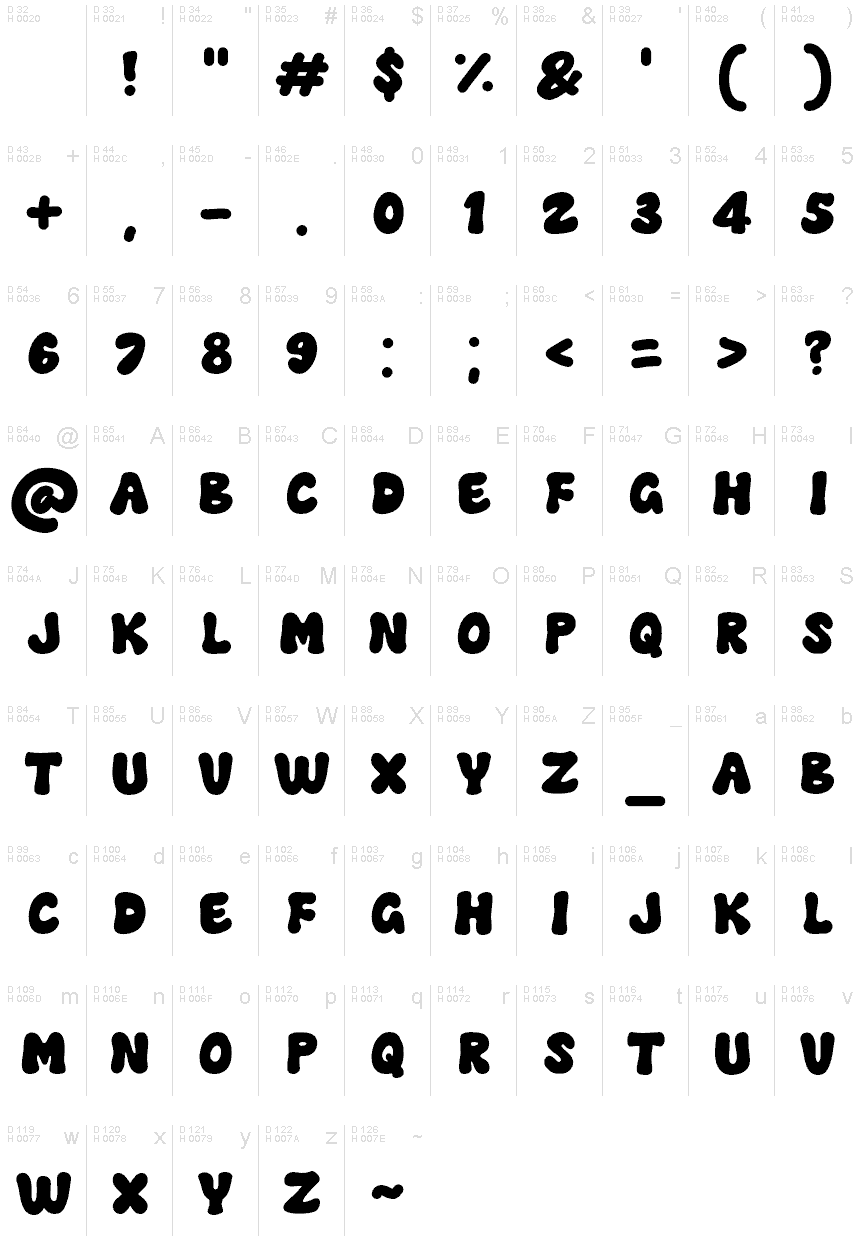
Pinky Lord
Pinky Lord font by MJType is a cartoon display typeface designed for viewers' delight. Its playful style shines through and brings a unique vibe to each design with differently shaped characters, just like each element belonging to a piece of a puzzle. The bold impression it has is enriched with retro chunky letters that seem to pop up from the background on which they're displayed.
Free and ready to appear on your posters, magazine covers, or greeting card designs, this font can also be used for logos and children’s book covers and content. Because telling stories requires both strong words and matching fonts like Pinky Lord. Provide an exciting reading experience with comics, school projects, games designs or even digital ads and media outlets that would love featuring such a resource in their branding processes as well as UI applications – web development being no exception!